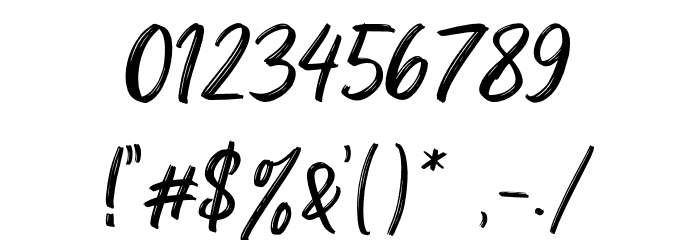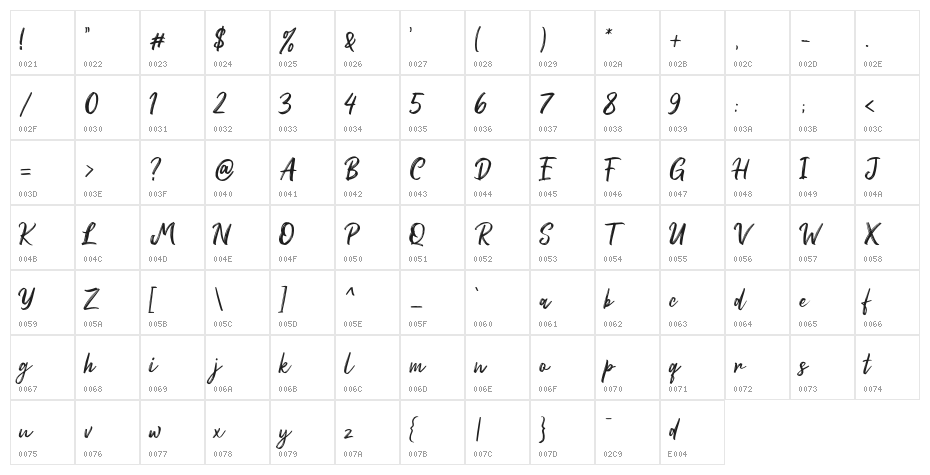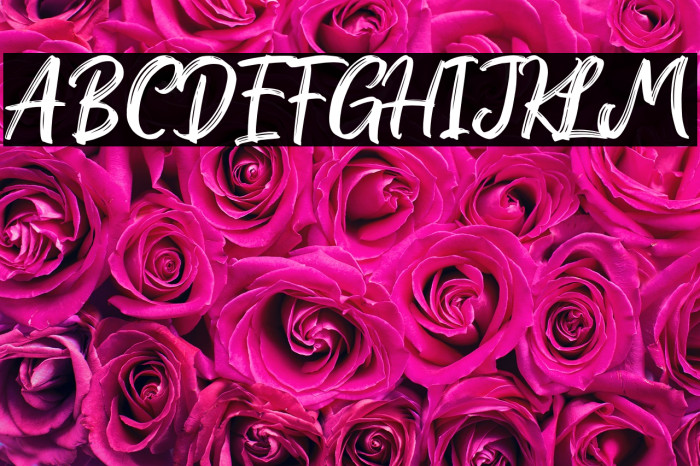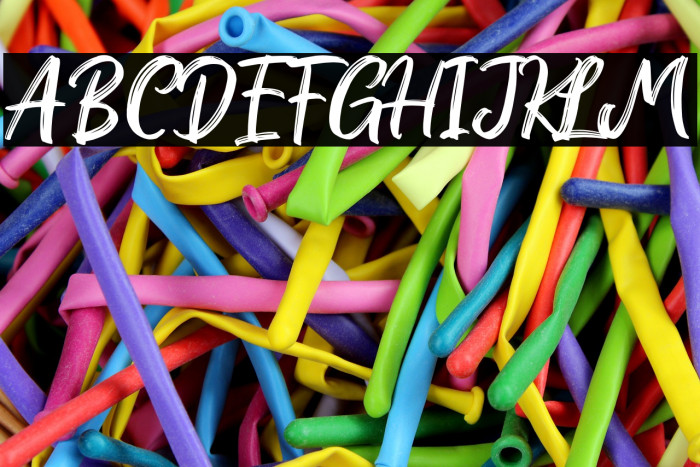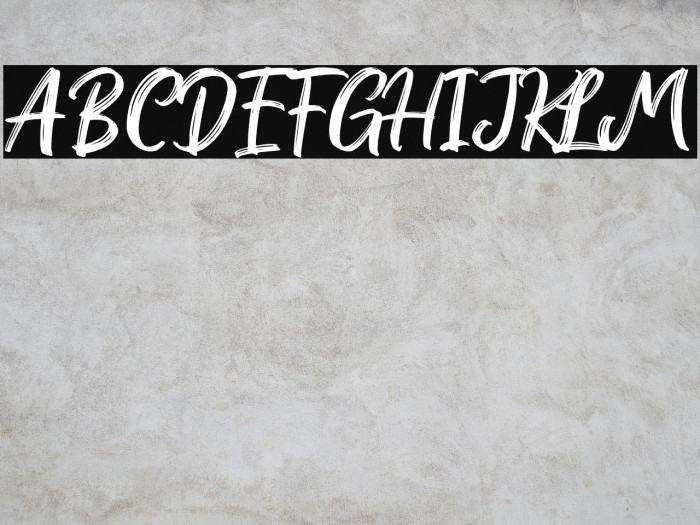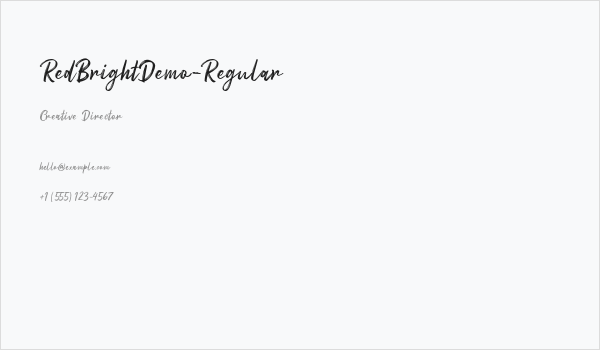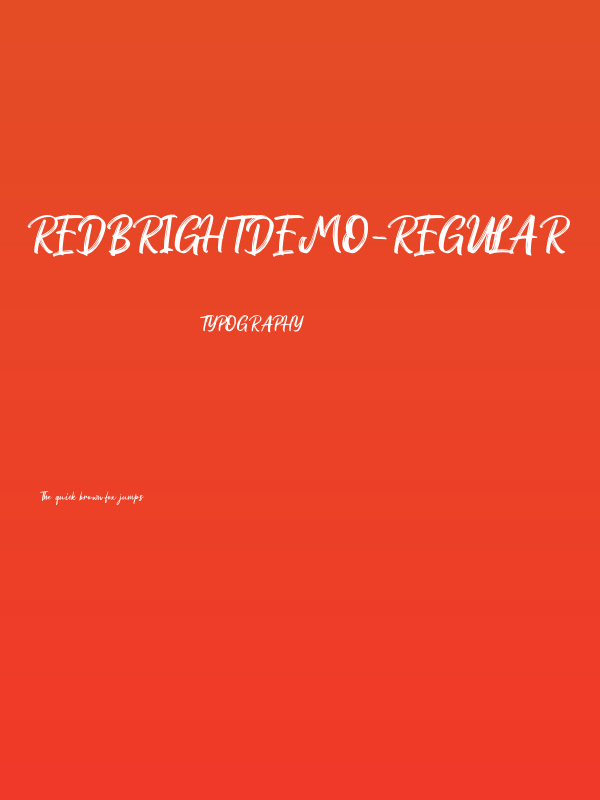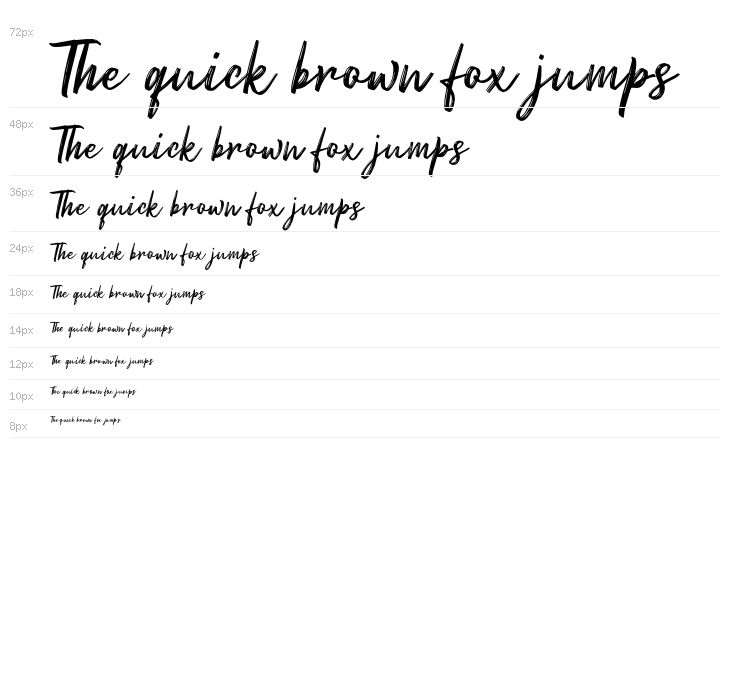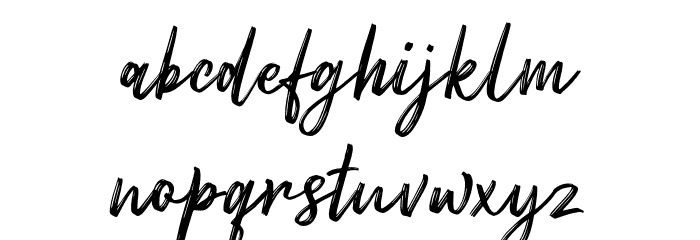
RedBrightDemo-Regular Font
RedBrightDemo-Regular Description
This font features a bold and dynamic script style, characterized by its flowing and connected letterforms. The strokes are thick and expressive, with a hand-drawn quality that adds a personal touch. The uppercase letters are particularly striking, with dramatic flourishes and a sense of movement. The lowercase letters maintain a consistent style, offering a harmonious blend with the uppercase. Numbers and special characters are crafted with the same attention to detail, ensuring a cohesive look across all elements. The overall appearance is both elegant and energetic, making it suitable for a variety of creative applications.